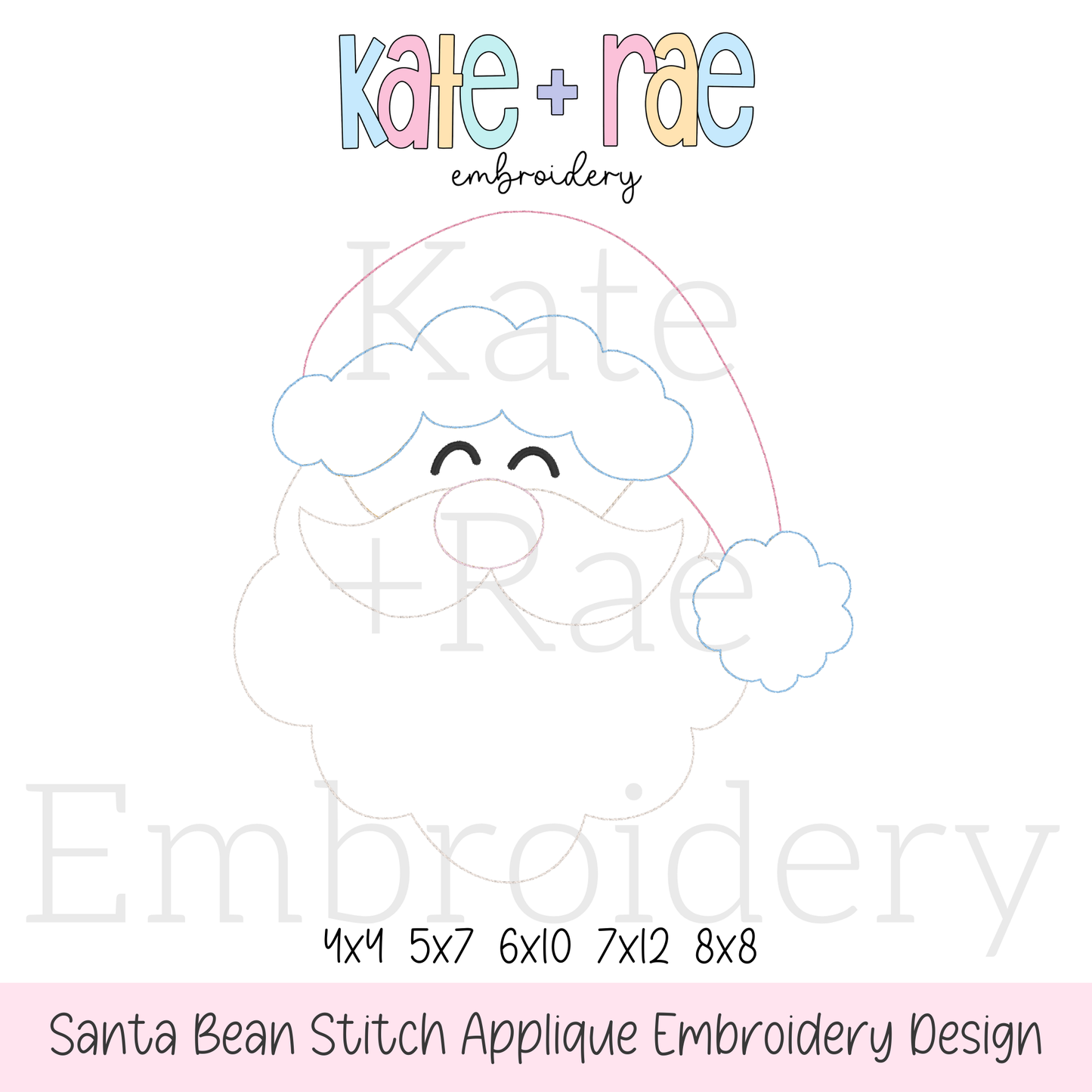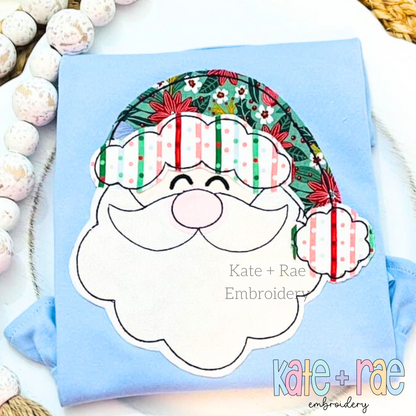
Santa Claus Bean Stitch Applique Embroidery Font: Santa face applique with a striped and floral hat on a light blue shirt
Santa Claus Bean Stitch Applique Embroidery Font
Add Christmas cheer with the Santa Claus bean stitch applique font! Spell out holiday names on stockings and Christmas outfits.